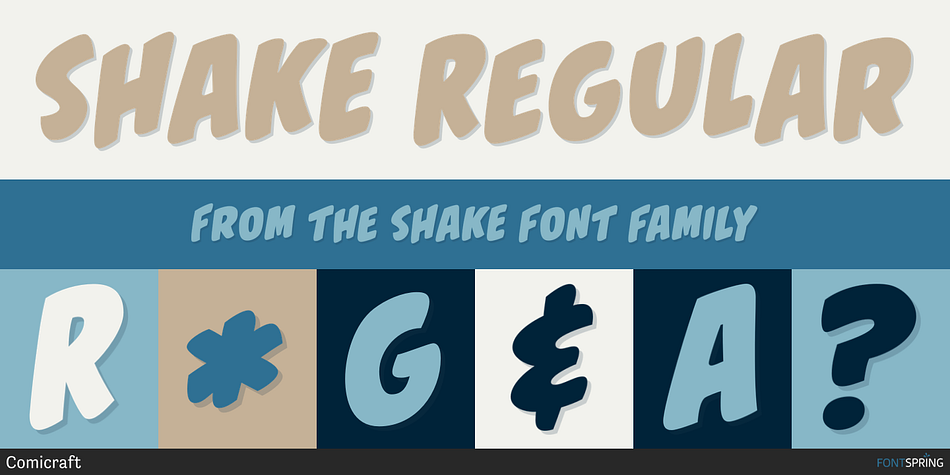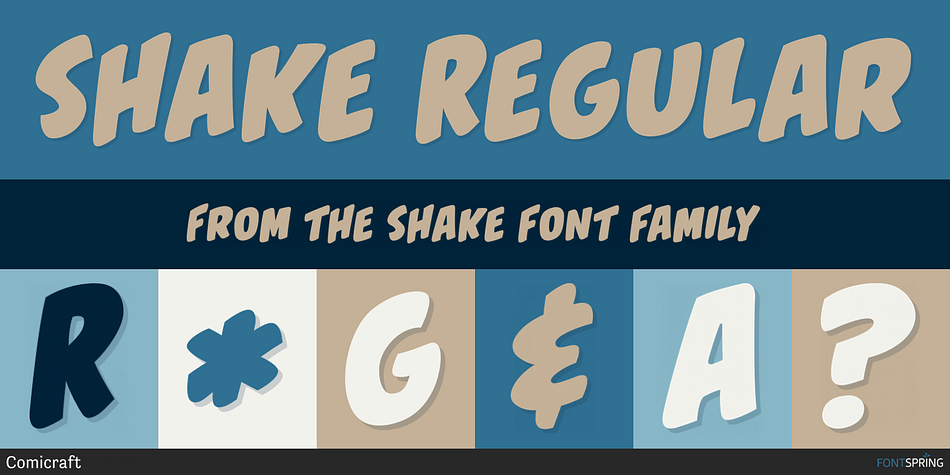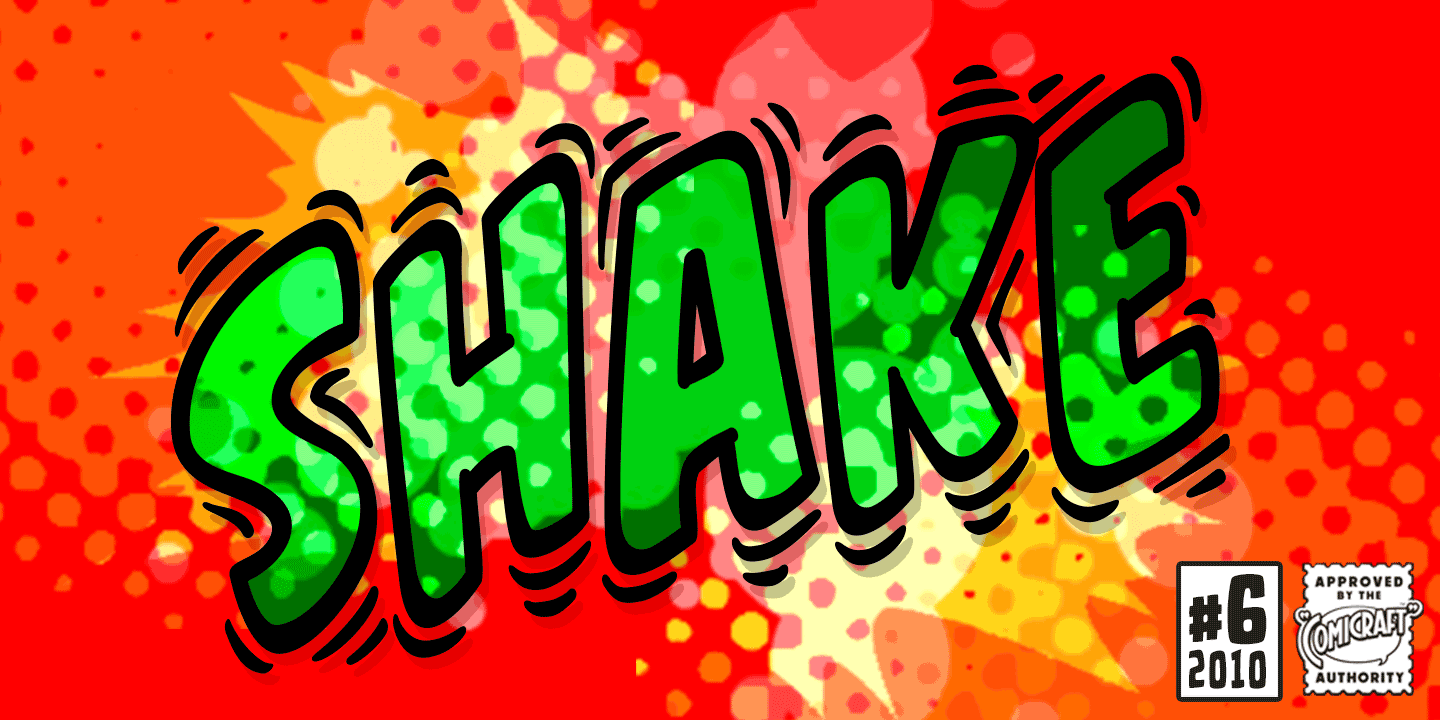
SHAKE REGULAR
Designed by John Roshell, Shake is a comic and hand display font family. This typeface has two styles and was published by Comicraft.
Shake it DOWN! Shake it UP! Shake it OFF! Shake a LEG! You can even shake it like a polaroid picture now that Comicraft has the font that allows you to do just that, in comic book form! Shake is the ideal partner to our font, SHIVER, and yet it does not preclude rattling OR rolling if you’re getting ready to RUMBLE!
CAUTION: This font may cause you to move to and fro with jerky movements.